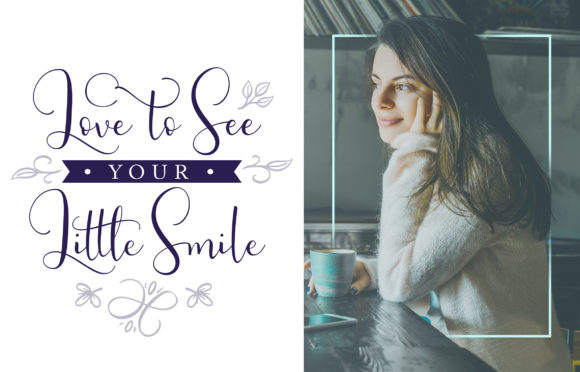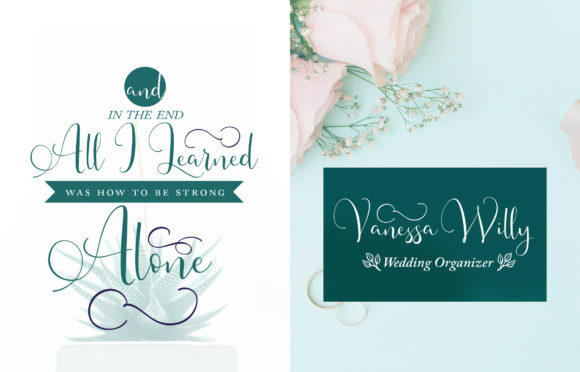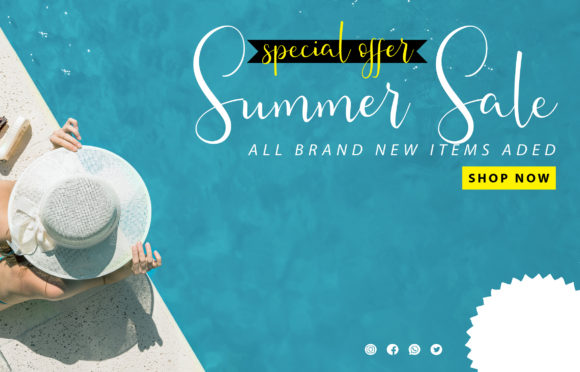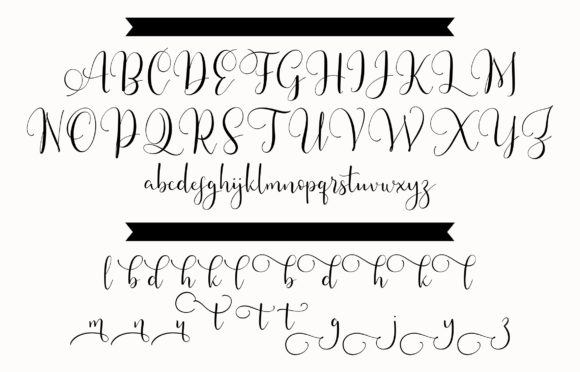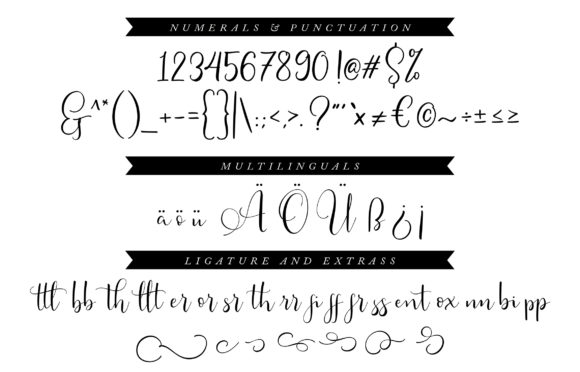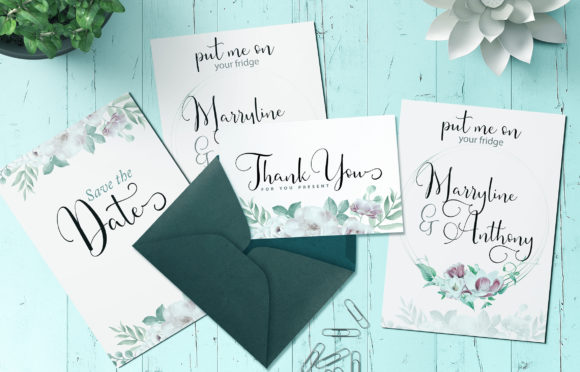
Berlynda Font
About Berlynda Font
Berlynda is a PUA encoded font which means you can access all of the gorgeous glyphs and swashes with ease!
This handwritten font will look outstanding in any context, whether it’s being used on busy backgrounds or as a standalone headline!